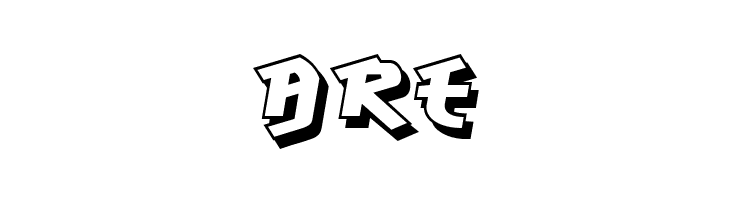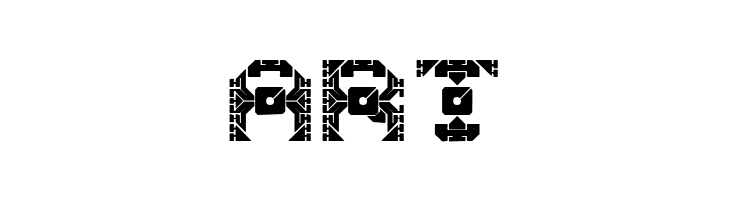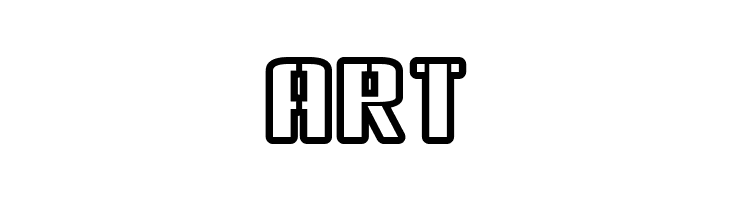
A sleek, modern italic font with clean lines and a sophisticated style.
A modern, ultra-lightweight font with sleek, geometric lines and a minimalistic style.
A modern, italicized font with medium contrast and sleek design.
A modern, geometric sans-serif font with a clean and balanced design.
A modern, italicized font with a sleek and dynamic style.
A bold, geometric sans-serif typeface with strong, uniform strokes.
A clean, modern sans-serif font with a geometric and minimalist design.
A playful, bold font with rounded edges and a whimsical design.
A bold, playful font with rounded, blob-like characters.
A bold, playful font with heart-shaped cutouts in each character.
Bold, angular graffiti-inspired font with a dynamic urban style.
A bold, graffiti-inspired font with sharp angles and dynamic forms.
A bold, impactful typeface with thick, block-like characters.
A bold, geometric font with a three-dimensional, graffiti-inspired style.
A bold, angular font with a dynamic, geometric style.
A modern, geometric font with clean lines and uniform stroke width.
A geometric, modern font with clean lines and rounded edges.
A bold, condensed font with a modern and sleek design.
A tall, condensed font with a modern and sleek appearance.
A bold, geometric, and modern font with a strong presence.
A bold, modern font with a geometric and smooth design.
A bold, geometric font with a modern and balanced design.
A bold, modern font with thick strokes and tight spacing, perfect for impactful designs.
A bold, geometric font with high contrast and a modern aesthetic.
A bold, geometric font with a modern and industrial aesthetic.
A modern, stencil-like font with bold, angular lines and high contrast.
A modern, geometric font with sharp angles and a technical appearance.
A bold, geometric font with a futuristic and technical style.
A bold, italicized font with strong strokes and a dynamic, forward-leaning style.
A bold, modern font with clean lines and a strong presence.
A modern, geometric font with clean lines and uniform strokes.
A sleek, modern italic font with clean lines and a minimalist design.